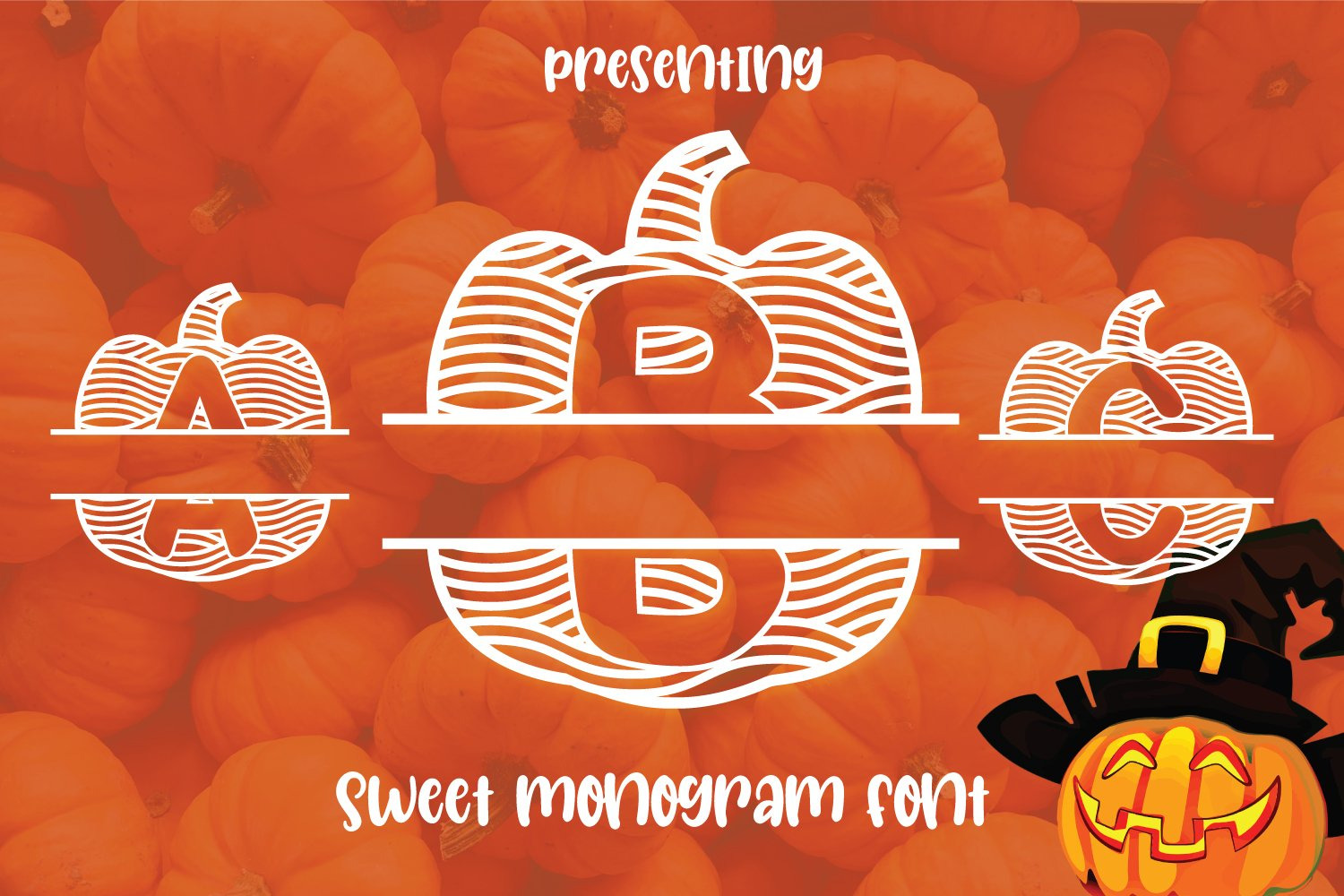
Pumpkin Monogram Font
Presenting Cute font for you. Pumpkin Monogram Font for Halloween can be used in tons of projects especially for child and newborn projects. You can use it for craft purposes and this will look great on shirts, printing material, and other stuff.
- UPPER Case only Letters A to Z and 0 to 9
- Super-Cute and Creative